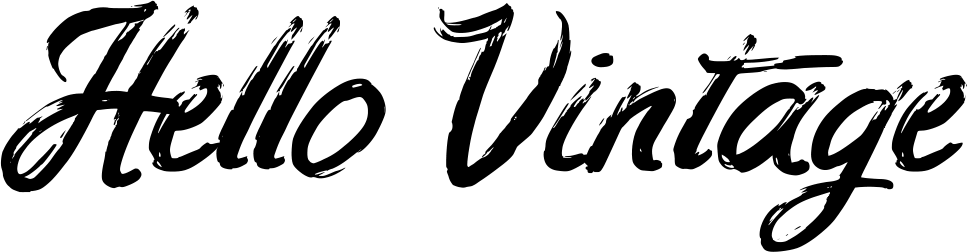
Hello Vintage Font
Hello Vintage is a brush-style script font that does not support punctuation and is the result of adding a bit of creativity to a formal, boring font. Its characters are like old letters, so it conveys a sense of persona…
Hello Vintage is a brush-style script font that does not support punctuation and is the result of adding a bit of creativity to a formal, boring font. Its characters are like old letters, so it conveys a sense of personalization and nostalgia, therefore it can simply engage the audience with graphic content such as logos and business cards.